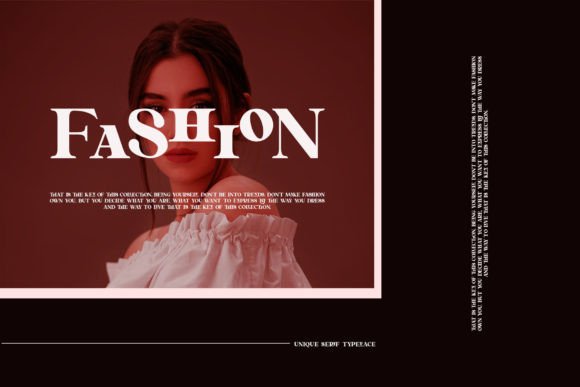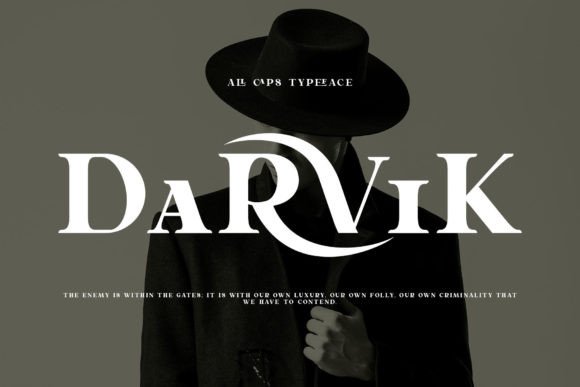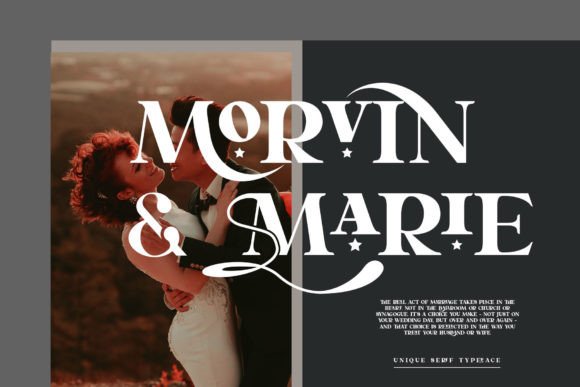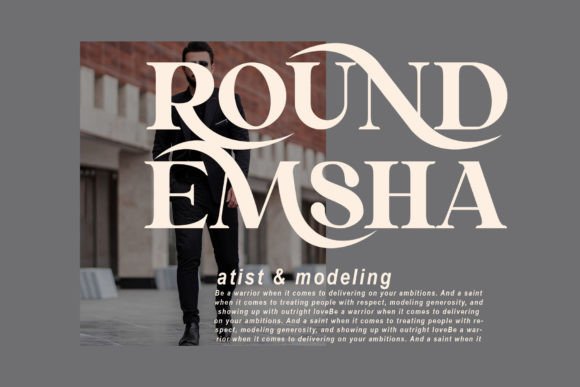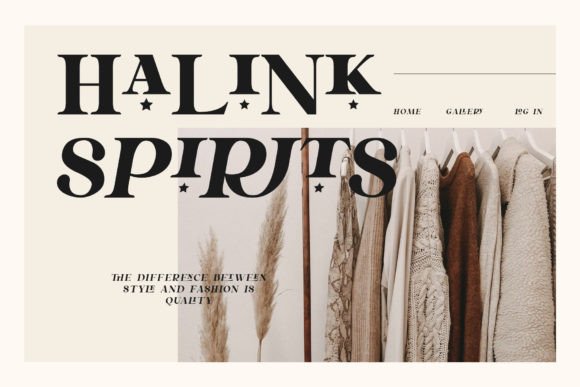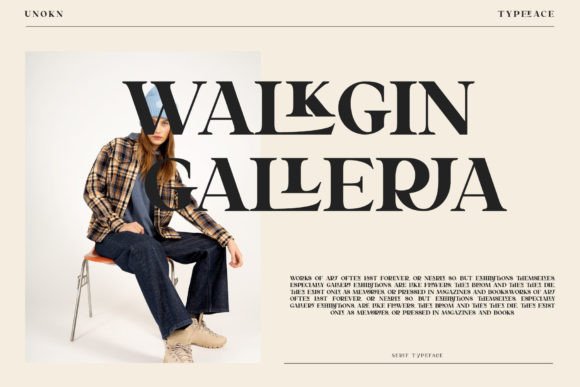
Introduction to Kamin Font
Kamin is a stylish and fashionable serif font that embodies elegance and sophistication.
With its sleek lines and refined letterforms, it exudes a sense of luxury and class Perfect for high-end branding, editorial design, and sophisticated projects, Kamin adds a touch of refinement and timeless beauty to any design.
Key Features of Kamin Font
Why Choose Kamin Font?